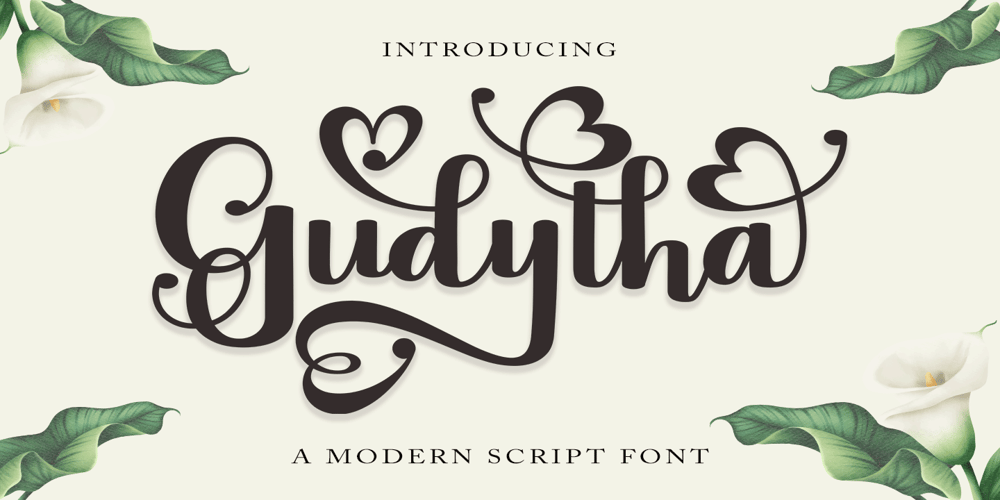
Gudytha
Gudytha font
Gudytha Font Family was designed by Has Rizal and published by Hrz Studio. Gudytha contains 1 styles and family package options. Gudytha is an elegant script font with a contemporary atmosphere and impeccable form, inspired by timeless classic calligraphy. Not too thin and not too thick, balanced and varied, this font was designed to enhance the beauty of your projects. This font is PUA encoded which means you can access all of the glyphs and swashes with ease!